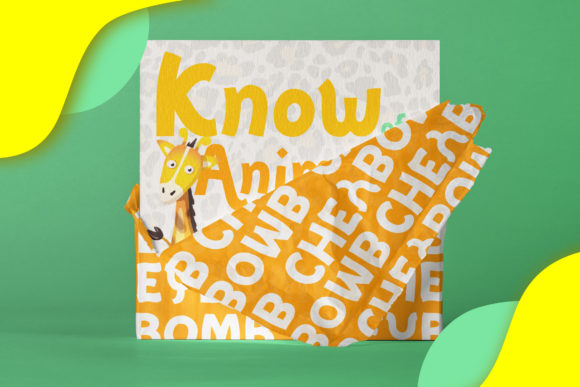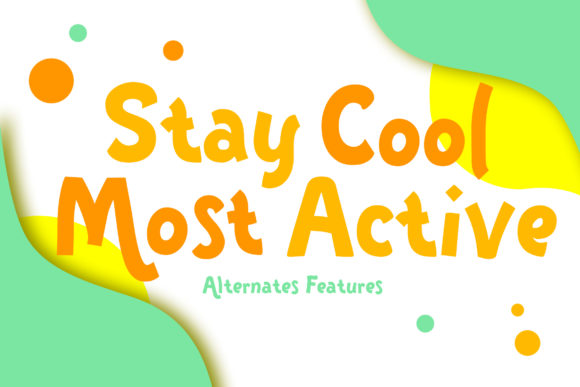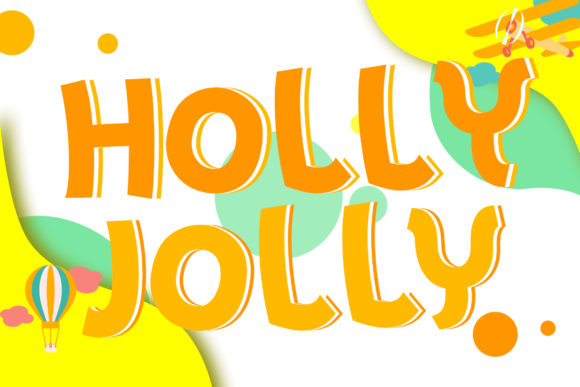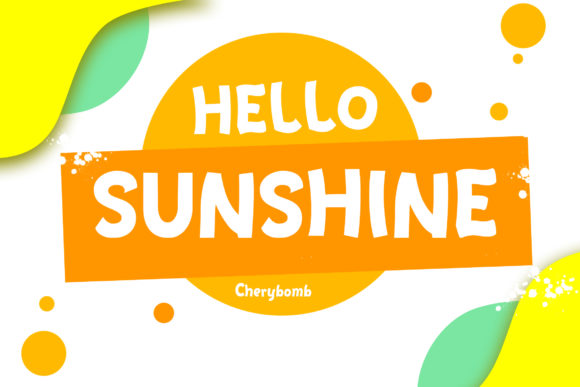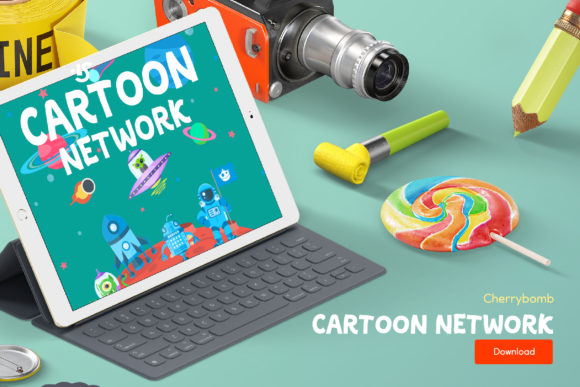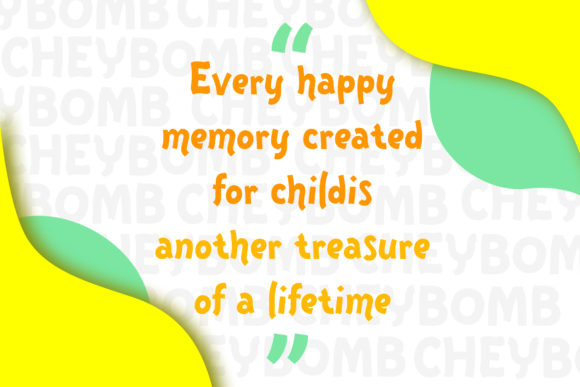
Introducing Chery Bomb Font: The Ultimate Display Font for Bold and Creative Designs
Are you tired of using the same old fonts for your designs? Look no further! Chery Bomb Font is a bold and chunky lettered display font that’s sure to make your creative ideas stand out. This font is perfect for designers and crafters who want to add a touch of fun and playfulness to their designs, especially when working on children-themed projects.
What is Chery Bomb Font?
Chery Bomb Font is a unique and eye-catching display font that’s designed to make a statement. Its bold and chunky letters are perfect for creating attention-grabbing headlines, titles, and text elements that will leave a lasting impression on your audience. The font’s playful and energetic vibe makes it ideal for use in a variety of design projects, from children’s party invitations and educational materials to posters, flyers, and social media graphics.
Key Features of Chery Bomb Font
- Bold and Chunky Letters: Chery Bomb Font features bold and chunky letters that are sure to grab attention.
- Playful and Energetic Vibe: The font’s playful and energetic vibe makes it perfect for children-themed designs and projects.
- Easy to Read: Despite its bold and chunky design, Chery Bomb Font is easy to read, even at smaller sizes.
- Highly Versatile: The font is highly versatile and can be used in a variety of design projects, from print materials to digital graphics.
Why Use Chery Bomb Font?
So, why should you use Chery Bomb Font in your designs? Here are just a few reasons:
- Adds a Touch of Fun and Playfulness: Chery Bomb Font adds a touch of fun and playfulness to your designs, making them more engaging and appealing to your audience.
- Perfect for Children-Themed Designs: The font is perfect for children-themed designs, especially when combined with bright colors.
- Great for Headlines and Titles: Chery Bomb Font is great for creating attention-grabbing headlines and titles that will leave a lasting impression on your audience.
- Easy to Pair with Other Fonts: The font is easy to pair with other fonts, making it highly versatile and flexible.
How to Use Chery Bomb Font
Using Chery Bomb Font in your designs is easy! Here are a few tips to get you started:
- Use it for Headlines and Titles: Use Chery Bomb Font for headlines and titles to add a touch of fun and playfulness to your designs.
- Combine it with Bright Colors: Combine the font with bright colors to create a bold and eye-catching design.
- Pair it with Other Fonts: Pair Chery Bomb Font with other fonts to create a unique and visually appealing design.
- Experiment with Different Sizes: Experiment with different sizes to see how the font looks at different scales.
In conclusion, Chery Bomb Font is a bold and chunky lettered display font that’s perfect for designers and crafters who want to add a touch of fun and playfulness to their designs. Its playful and energetic vibe makes it ideal for children-themed designs, especially when combined with bright colors. With its bold and chunky letters, ease of use, and high versatility, Chery Bomb Font is sure to become a go-to font in your design arsenal.
Get Creative with Chery Bomb Font!
So, what are you waiting for? Get creative with Chery Bomb Font today and see how it can elevate your designs to the next level! Whether you’re working on a children-themed project or just want to add a touch of fun and playfulness to your designs, Chery Bomb Font is the perfect choice.